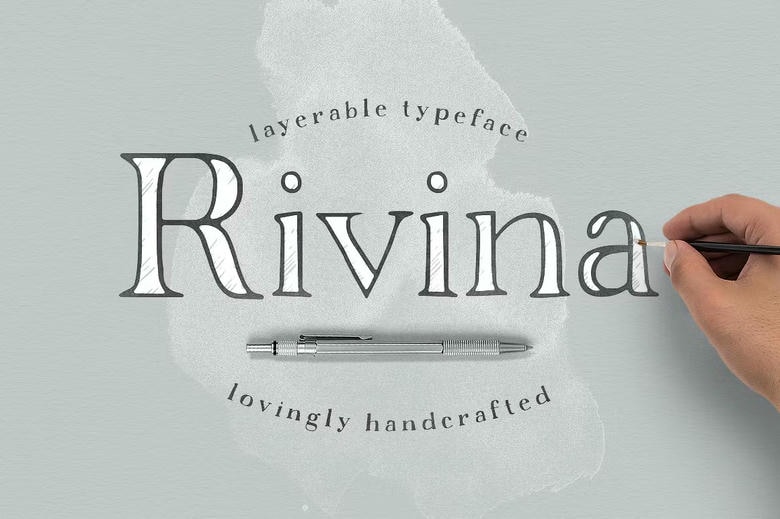
Rivina Font
Rivina Font – This is an innovative and fun hand drawn serif that was influenced by the do it yourself movement that has taken off in recent years. With the overload of everything virtual this shift of gears was not to be avoided, and one that I welcome with open arms.
The creator can pick the color of the fill and the outline separately by dividing Rivina into two parts. This mere division opens up the gates to an entire frontier of creativity and gives the creator more freedom when it comes to their design decisions.
Rivina Serif Font